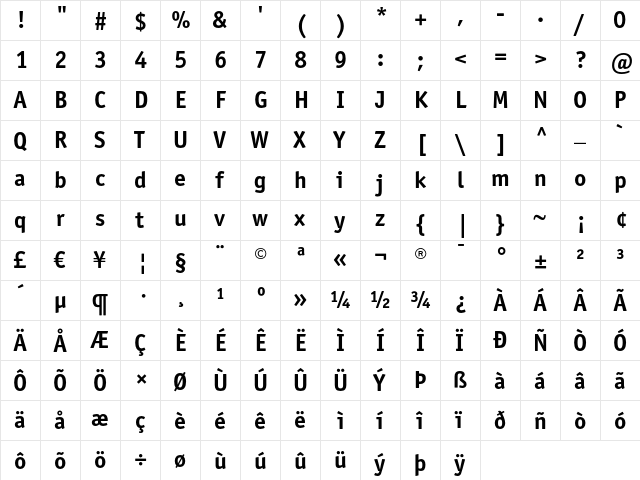
ITC Officina Sans LT Bold
Design Context for ITC Officina Sans LT Typeface
ITC Officina Sans LT offers clean, dependable letterforms without strong stylistic allegiance, making it a practical choice for designers who need flexibility. The heavy weight commands attention and anchors typographic hierarchies.